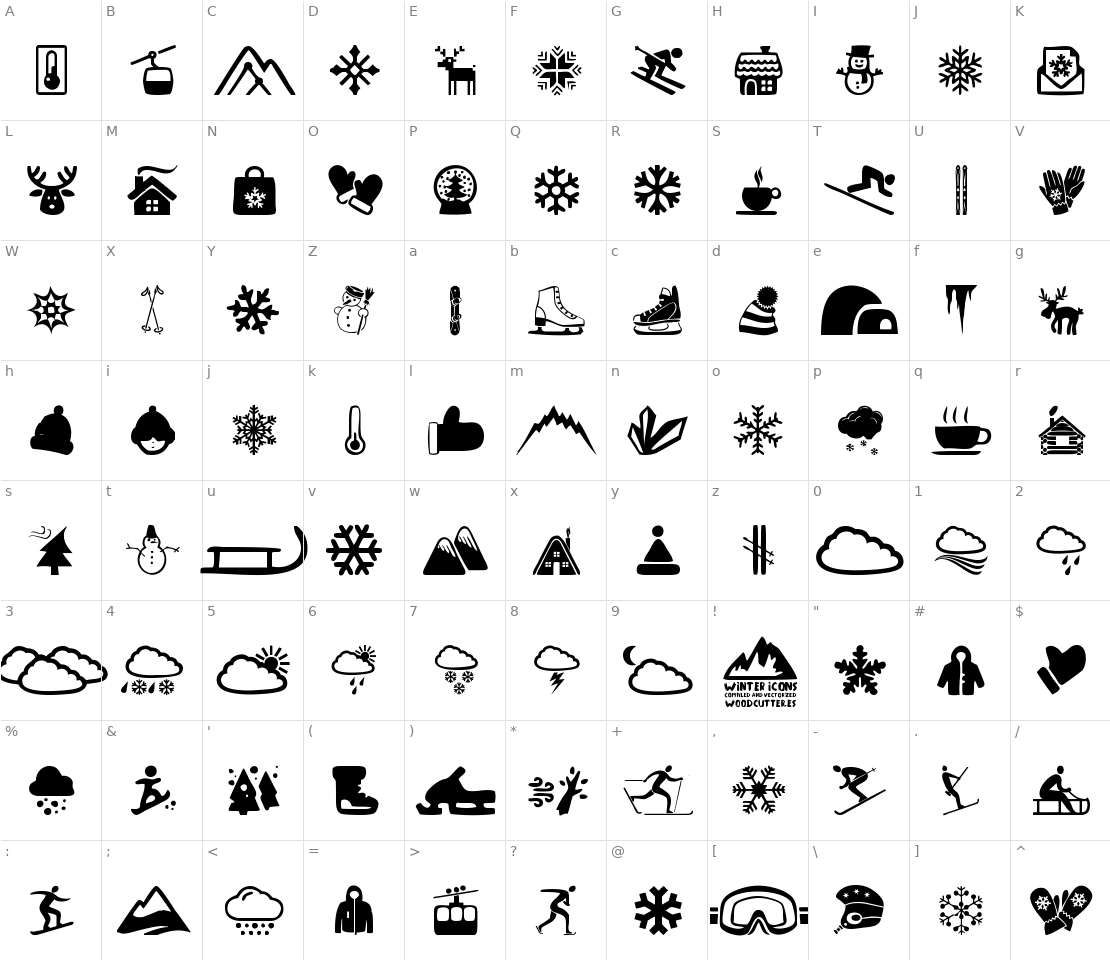
Winter Icons
Winter Icons is a decorative symbol font from Woodcutter filled with seasonal pictographs: snowflakes, snowmen, Christmas trees, and other winter holiday imagery. It's not a text font but a collection of illustrated icons mapped to keystrokes, useful for holiday cards, seasonal packaging, and festive design layouts where you need quick, consistent winter-themed graphics without reaching for separate illustration files.